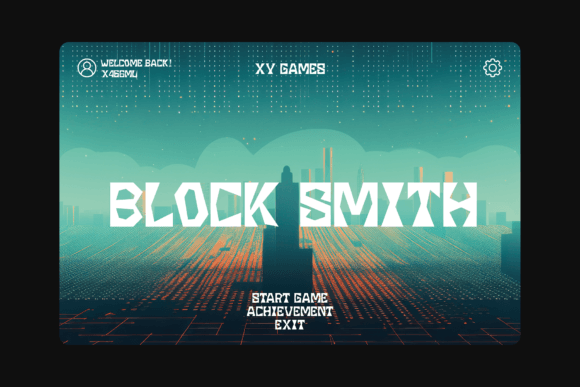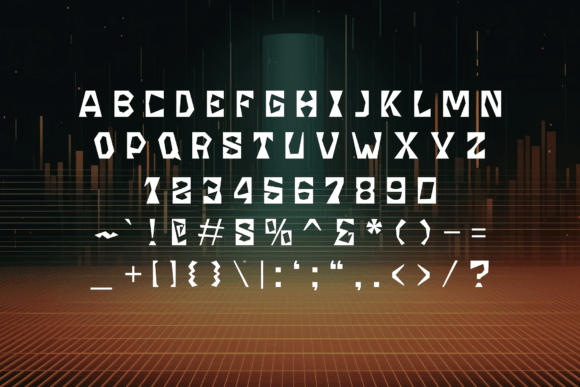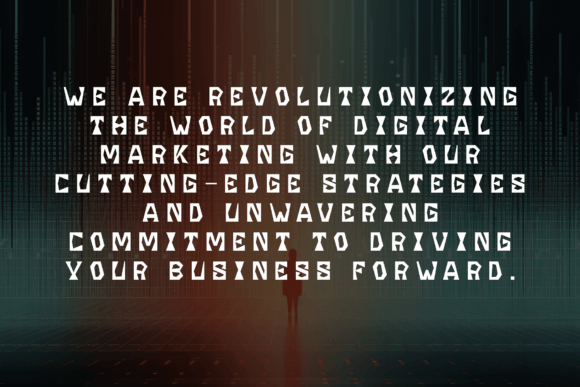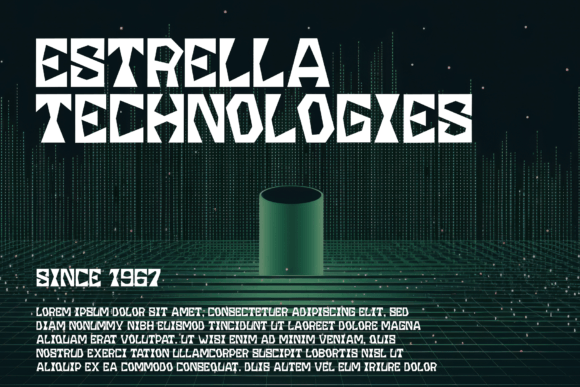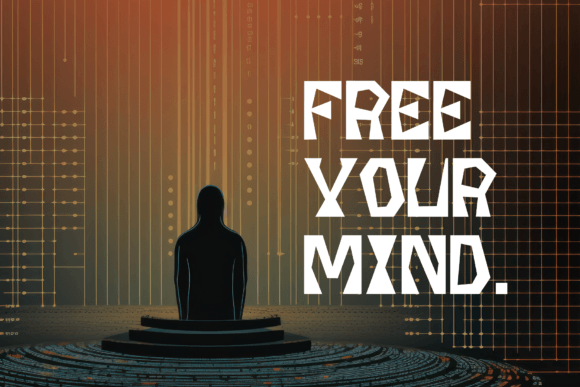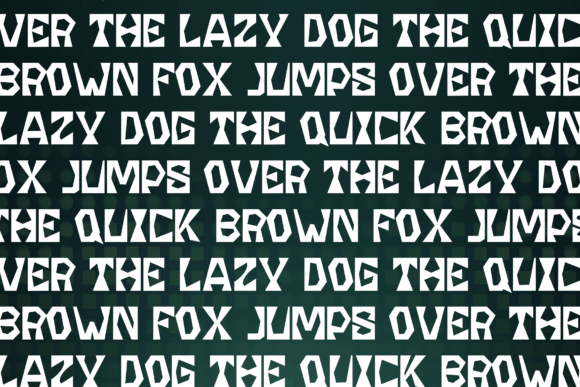
Introducing Blocksmith: The Ultimate Bold Font for Impactful Designs
In the world of typography, a font can make or break a design. When it comes to making a statement, you need a font that’s bold, robust, and attention-grabbing. That’s where Blocksmith comes in – a game-changing font that’s designed to captivate attention and exude strength and confidence.
The Epitome of Boldness and Bulk
Blocksmith is the epitome of boldness and bulk in the world of typography. Its robust and sturdy letterforms command attention with their substantial weight and commanding presence. Each character is meticulously crafted, showcasing a perfect balance of boldness and readability. Whether you’re a designer, craftsperson, or simply someone who appreciates great typography, Blocksmith is sure to impress.
Perfect for Impactful Designs
So, what makes Blocksmith the perfect font for impactful designs? For starters, its bold and sturdy letterforms make it ideal for creating eye-catching headlines, attention-grabbing posters, and impactful branding materials. Whether you’re designing a logo, brochure, or website, Blocksmith is the perfect choice for making a statement.
Key Features of Blocksmith
- Bold and Robust Letterforms: Blocksmith’s letterforms are designed to be bold and robust, making them perfect for creating attention-grabbing designs.
- Perfect Balance of Boldness and Readability: Each character is meticulously crafted to showcase a perfect balance of boldness and readability.
- Versatile: Blocksmith is a versatile font that can be used for a wide range of design projects, from logos and brochures to websites and more.
- Easy to Read: Despite its boldness, Blocksmith is easy to read, making it perfect for designs that require a clear and concise message.
Why Choose Blocksmith?
So, why choose Blocksmith over other fonts? Here are just a few reasons:
- Make a Statement: With Blocksmith, you can make a statement and grab attention with your designs.
- Stand Out from the Crowd: Blocksmith is a unique font that’s sure to stand out from the crowd and make your designs memorable.
- Empower Your Designs: With Blocksmith, you can empower your designs and give them the confidence and strength they need to make an impact.
How to Use Blocksmith
Using Blocksmith is easy. Here are a few tips to get you started:
- Headlines and Titles: Use Blocksmith for headlines and titles to grab attention and make a statement.
- Branding Materials: Use Blocksmith for branding materials, such as logos and brochures, to create a bold and memorable identity.
- Posters and Flyers: Use Blocksmith for posters and flyers to create eye-catching designs that grab attention.
In conclusion, Blocksmith is a game-changing font that’s designed to make a statement. With its bold and robust letterforms, perfect balance of boldness and readability, and versatility, Blocksmith is the perfect choice for designers and craftspersons who want to create impactful designs. Whether you’re designing a logo, brochure, or website, Blocksmith is sure to empower your designs and leave a lasting impression on your audience.